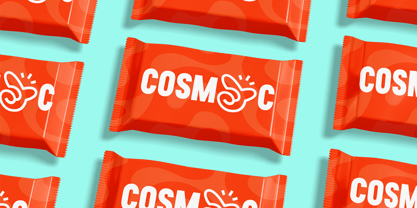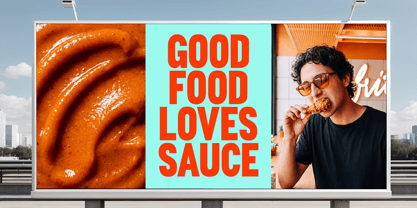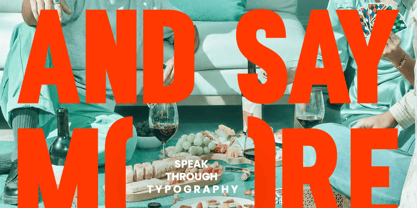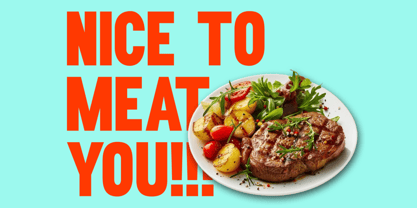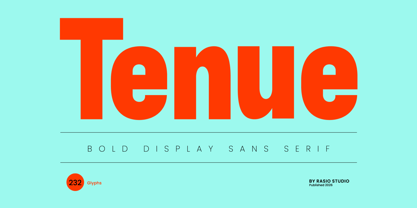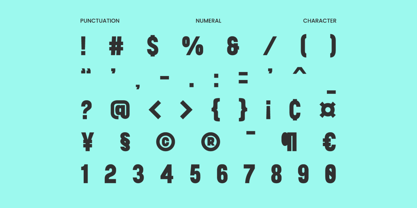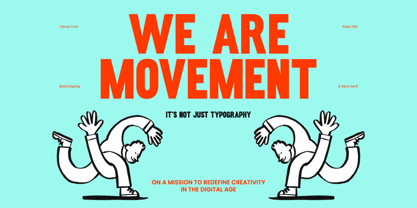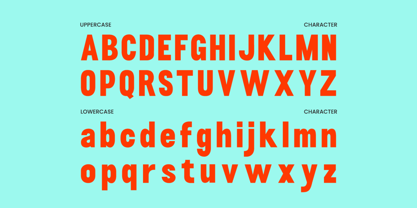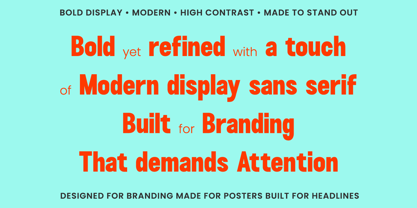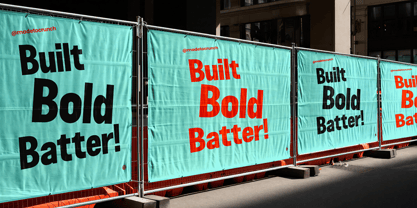
Tenue
by Rasio Studio
The Tenue Font Family was designed by Fajar Indra and published by Rasio Studio. Tenue contains 1 styles. More about this family
Tenue is a bold display sans serif typeface designed around strong proportions, compact character forms, and a confident visual presence. The uppercase alphabet features substantial strokes and geometric construction, while the lowercase characters introduce a slightly softer rhythm that keeps large-scale lettering visually engaging. Its straightforward structure gives headlines a clean, assertive appearance without relying on decorative details, making the typeface especially effective when typography needs to dominate the composition.
Relevance and Use Case is perfect for poster headlines, advertising campaigns, event graphics, editorial covers, album artwork, streetwear graphics, product packaging, signage, promotional banners, social media artwork, and contemporary brand identities. The uppercase characters can create especially strong all-caps compositions, while the lowercase set provides additional flexibility for supporting phrases, secondary headlines, and mixed-case layouts. Its solid silhouette also works well when lettering needs to remain visually prominent against photographs, illustrations, vibrant backgrounds, or simple color fields.